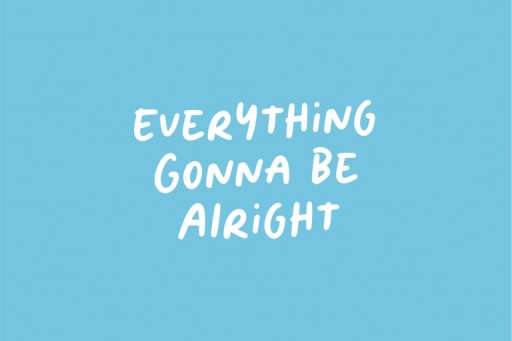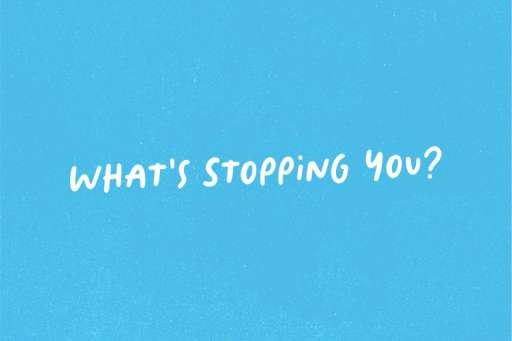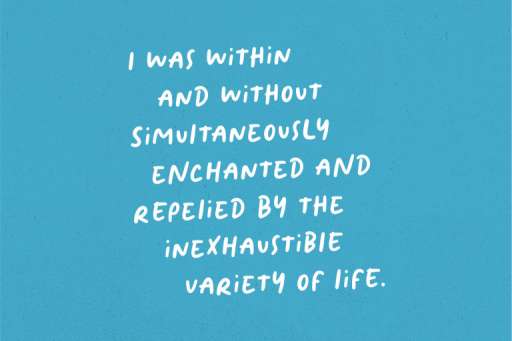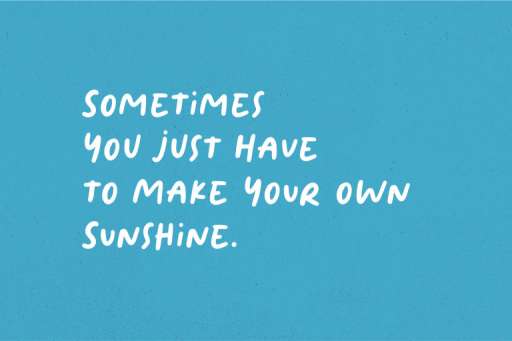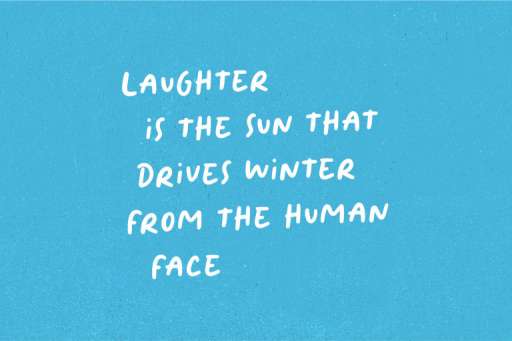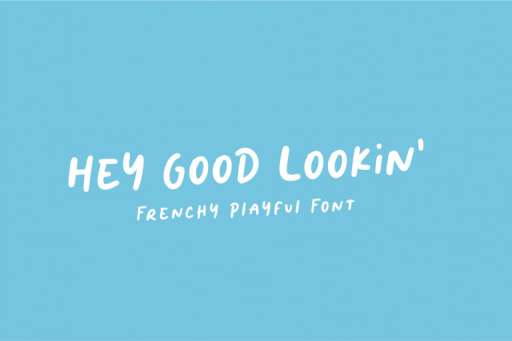
Frenchy Font – Handwritten Font from Jimtype Studio
Frenchy Font, perfect for that hand-lettered social media quote, creating handwritten notes, logos, or just adding a hand-written touch to any project!
- Basic Latin A-Z and a-z
- Numbers and punctuation
- Multilingual Support